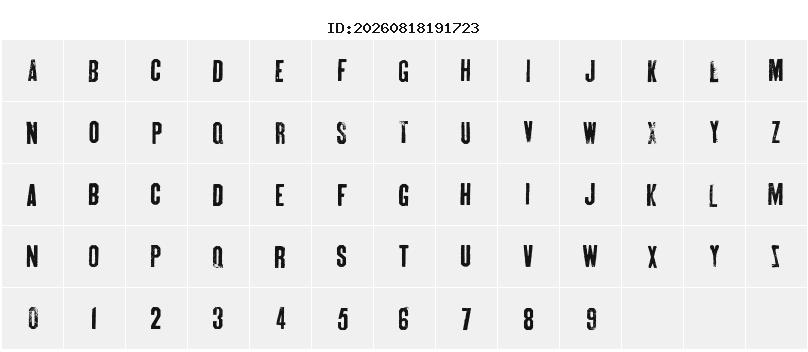
• Font Name: Skin & Bones
• Full Font Name: Skin & Bones
About Skin & Bones.ttf
Skin & Bones.ttf is a modern, elegant sans-serif font designed for ultimate readability and visual harmony. Perfect for branding, headlines, web design, and print materials.